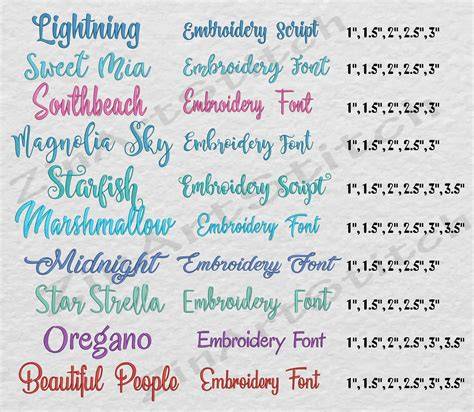
Embroidery Fonts – Let Your Imagination Run Wild!
Embroidery fonts are a great way to express your creativity and add a unique flair to any project. Whether you’re creating a quilt, a t-shirt, a blanket, or some other type of fabric item, embroidery fonts can add a unique touch of beauty and personalization. With so many different font styles available, it can be difficult to know where to begin. So, let’s take a look at some of the most popular embroidery fonts and how to use them in your project.
Classic Embroidery Fonts
If you’re looking for something timeless and traditional, classic embroidery fonts are a great choice. These fonts are often based on traditional script fonts as well as serif and sans serif fonts. Examples of classic fonts include Old English, Times Roman, and Baskerville. These fonts look great on just about any kind of project. They have a classic, timeless look that never goes out of style.
Modern Embroidery Fonts
If you’re looking to add a modern touch to your project, modern embroidery fonts are a great choice. Examples of these fonts include Helvetica, Arial, and Futura. These fonts are often used for contemporary projects and designs. They can also be used to add a unique, modern touch to any project.
Vintage Embroidery Fonts
Vintage embroidery fonts are perfect for adding a touch of nostalgia to your project. These fonts often feature ornate, detailed designs that bring a sense of nostalgia to any project. Examples of these fonts include Art Nouveau, Art Deco, and Art Deco II. They are great for adding a unique, vintage touch to any project.
Unique Embroidery Fonts
If you’re looking for something truly unique, there are many unique embroidery fonts available. These fonts often feature bold, unique designs that can add a unique flair to any project. Examples of unique fonts include Script, Brush Script, and Comic Sans. These fonts can be used to add a unique touch of personality to any project.
The Bottom Line
Embroidery fonts are a great way to add a unique touch of beauty and personalization to any project. With so many different font styles available, it can be difficult to know where to begin. But, by exploring the different styles of embroidery fonts, you can find the perfect font for your project that will make it truly stand out. So, let your imagination run wild and have fun exploring all the different embroidery fonts available!